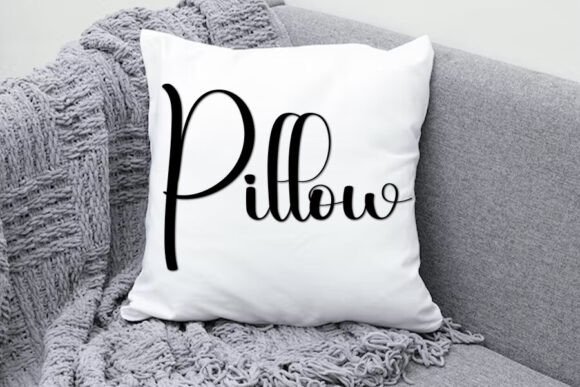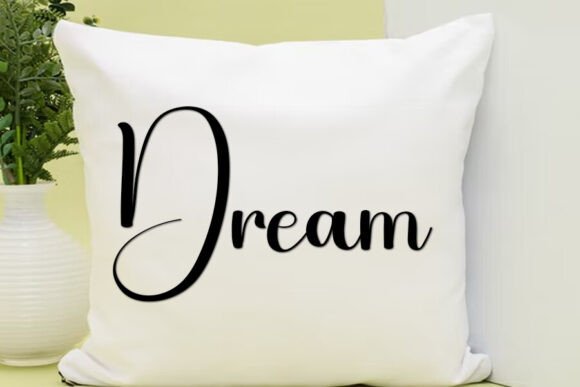
Writing Font
Presenting “Writing This” – a vibrant and elegant font that brings a breath of fresh air to your design creations. Be it splashy YouTube banners, stunning logo mockups, or exquisite wedding invitations, this font brings an edge to them all. Furthermore, it effortlessly enriches items like ID Cards, Flyers, and Crafts, reflecting perfection in your work. Utilizing this font lays a strong foundation for the growth and advancement of your business, offering you more than just textual beauty. “Writing This” is a depiction of simplicity meeting originality, setting your designs apart in the crowd. It’s more than just a font; it’s a game-changer that promises creativity and innovation.